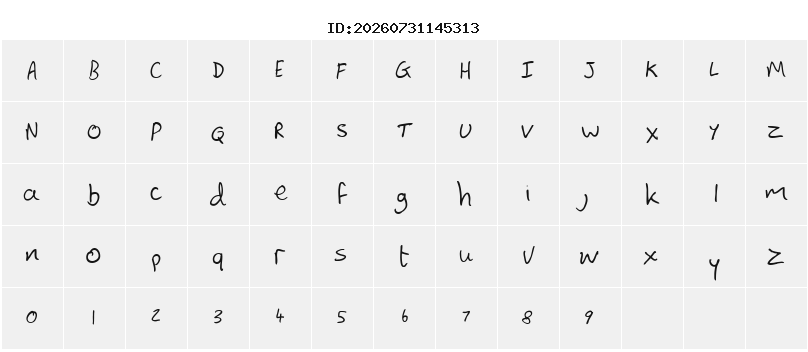
• Font Name: Lewis hand
• Designer: Liam Lewis
Lewis hand.ttf is a modern, elegant sans-serif font designed for ultimate readability and visual harmony. Perfect for branding, headlines, web design, and print materials.